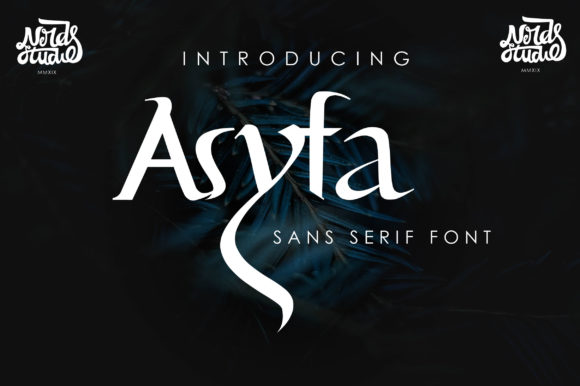
The Designer’s Delight: Asypa Font
I’ll never forget the time I was working on a fashion branding project, and my client asked me to create a bold, eye-catching logo. I spent hours scouring the internet for the perfect font, but nothing seemed quite right. That was until I stumbled upon Asypa Font. With its smooth curves and modern display style, it was love at first sight! In this article, I’ll share my experience with Asypa Font, its features, and how to make the most of it in your designs.
An Honest Review of Asypa Font
- ✨ Readability: Asypa Font is incredibly readable, even in large sizes. The smooth curves and bold lines make it perfect for headlines and titles.
- ✅ Versatility: This font is versatile and works well for both fashion branding and editorial designs.
- 💃 Stylish: Asypa Font has a unique, stylish flair that’s sure to make your designs stand out.
While Asypa Font is an excellent choice for many designs, there are a few things to keep in mind:
- 🤔 Limited use in body text: Asypa Font is best used for headlines and titles. Its bold style can be overwhelming for body text.
- ⚠️ Glyph limitations: Asypa Font has a limited set of glyphs, which may not be suitable for designs that require a wide range of special characters.
The Backstory of Asypa Font
Asypa Font was designed by a team of creatives who wanted to create a modern display font that was both readable and stylish. Inspired by the world of fashion and editorial design, they crafted a font that would meet the needs of designers and creatives. With its smooth curves and bold lines, Asypa Font is the perfect choice for designers looking to add a touch of elegance to their work.
| Author | Nerdstudio |
Q: What is Asypa Font?
Asypa Font is a modern display font that’s designed for fashion branding, editorial designs, and more. It’s known for its smooth curves, bold lines, and stylish aesthetic.